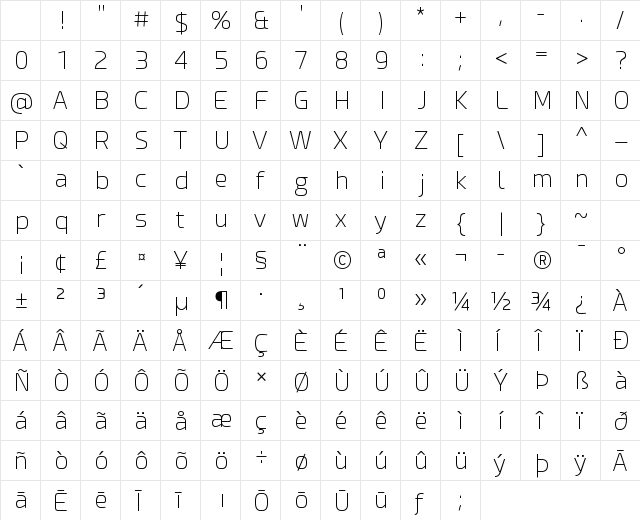
Complete Esphimere Extra Light Regular glyph index. Displaying only characters natively supported by Esphimere Extra Light Regular font.
Esphimere Extra Light is a composed and adaptable typeface that performs quietly and consistently across a wide range of design contexts. Its slender proportions lend an understated elegance to any composition.